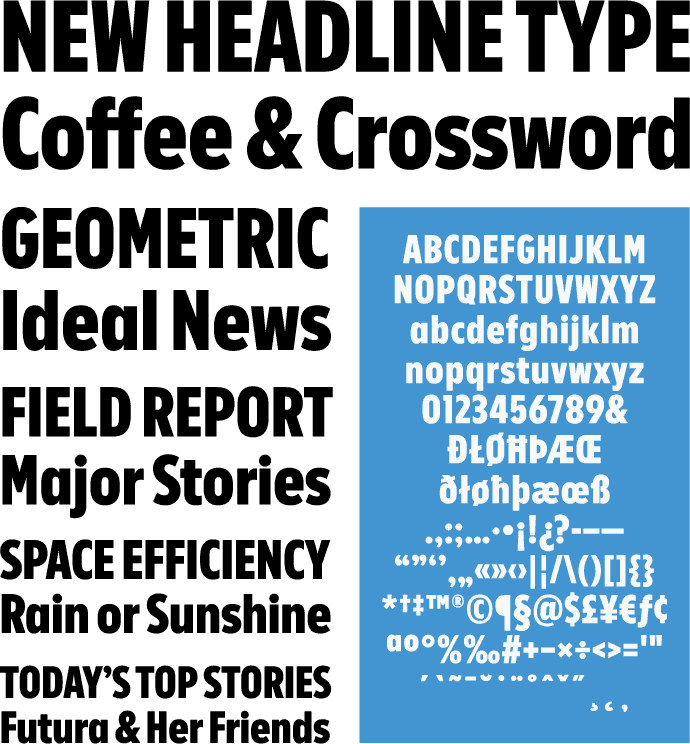
I designed this headline typeface for the dramatic relaunch of USA TODAY, which was overseen by Wolff Olins. The condensed style complements the paper’s proprietary version of Futura, but without resorting to the familiar elliptical shapes of Futura Condensed. I tailored the aesthetic to support the redesigned paper’s bold sleek look, combining clean circles (as in geometric sans) with austere ovals (as in a grotesque sans).